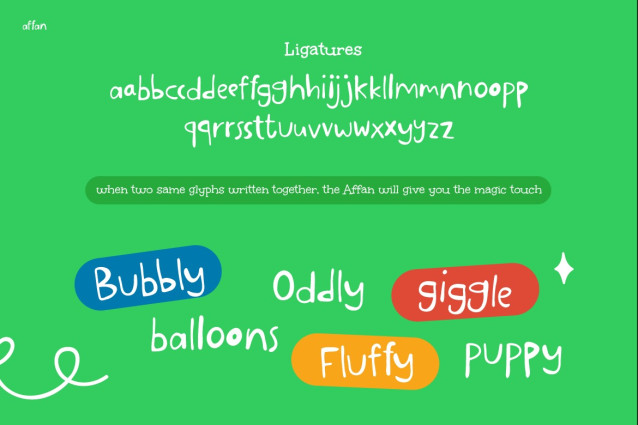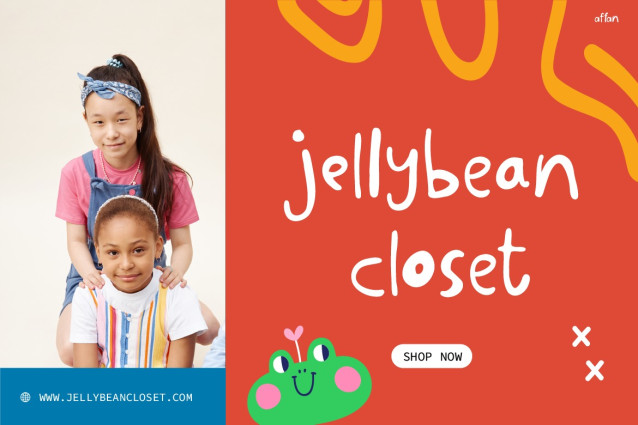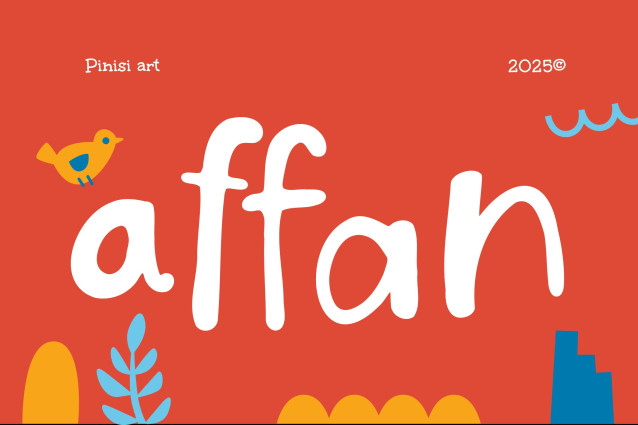
Affan Font
Affan Font – Playful Letters with Endless Creativity. Kids Font Affan sparks joy and creativity in every design. Its rounded strokes and smooth curves create a cheerful, friendly look. The hand-drawn style adds natural charm, and it also works beautifully across both print and digital projects. What makes it even better is the set of alternate letters, which lets you mix, match, and add variety. As a result, your designs feel unique, colorful, and full of life.
Unlike many fonts that look stiff or repetitive, Kids Font Affan gives you a playful rhythm that feels organic. Because of its clean yet creative shape, it balances fun and readability. Moreover, the alternates keep your layouts from looking predictable, so every design feels fresh. This makes it more than just a font—it becomes a creative tool you can rely on for multiple purposes.